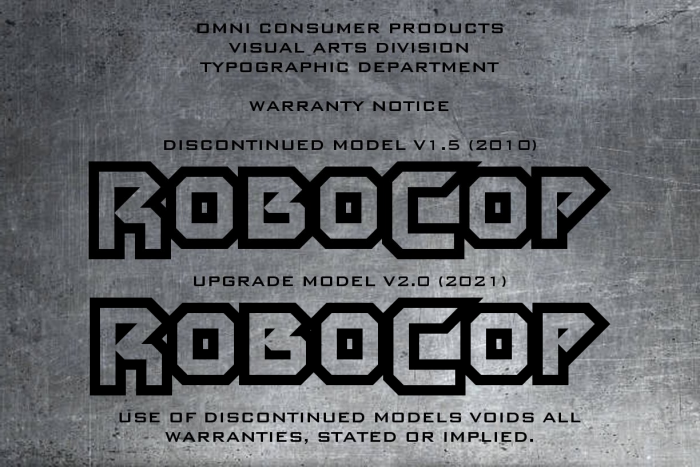
Outline version of the iconic typeface.
I think I heavily prefer this outline version, we are really back to 1987 now. I did not see the film but remember having been really impressed by the image on the placards and the font going with it. I think I had a small one in my room then. Still, are you sure a Robocop font does not exist out of Fontstruct, I mean a severely protected one ? Anyway, you did a great job here, far more effective than the solid version (in my humble opinion)
I particularly love the M and W, they seem to be alive
@nuerone error: Thank you for the kind words; I, too, prefer the bold/outline version -- just don't tell the solid version!
As I told Frodo7 in a previous release, there is likely a professional computer letterform version out there somewhere (the owner of the movie and/or Intellectual Property rights) for marketing, promotional and commercial purposes; it's just that I have not come across it in my 15+ years of font collecting. None of the old RoboCop fansites have any fonts resembling this design whatsoever.
Over the last 23 years, I still am quite surprised that such a bold, striking style was not recreated by some independent font design company or even a fan version created by someone using Fontographer or Font Lab. Perhaps it was felt the design was fated to be forever linked with the movie? Still, others make movie fonts all the time without much worry there...
And thank you for the kinds words for the M & W; we have our dear fellow FontStructor Frodo7 for those. His astute critique pointed out that the original versions of the M & W were too Medieval in design and not keeping with the established patterns. I thus remade the M, N & W to match the V, tweaked the Z and lastly, redesigned the original 7 -- it was a little too TRON-like for my tastes.
The "M" reminds me of buildings from the futuristic Delta City skyline. Delta City was the name of the gleaming new ccommunity OCP planned on building over the ashes of Old Detroit -- once RoboCop cleared out the criminal element therein...
A reminder: The re-issue of the RoboCop (1987) score -- out today on vinyl (!) and CD -- uses my Alex Murphy Outline font.
RoboCop has gotten an upgrade: font is now at version 2.0.  Diagonals and lowercase crossbars were a thickened, and diagonals now cross into the vertical strokes. Now more movie accurate than ever!
Whoever said "the right tool for the job" knew exactly what they were taking about. FontStruct continues to evolve into the right tool for so many of our works.
Going back to update old fonts to get closer to the original vision using the since enhanced capabilities of the FontStructor is a very admirable quality. Good job.
@thalamic - Thank you for the kind words.  Your comments always put a smile on my face.  :^)  And you are correct: this update was made possible by the 'new' 4x4 composite grid squares.